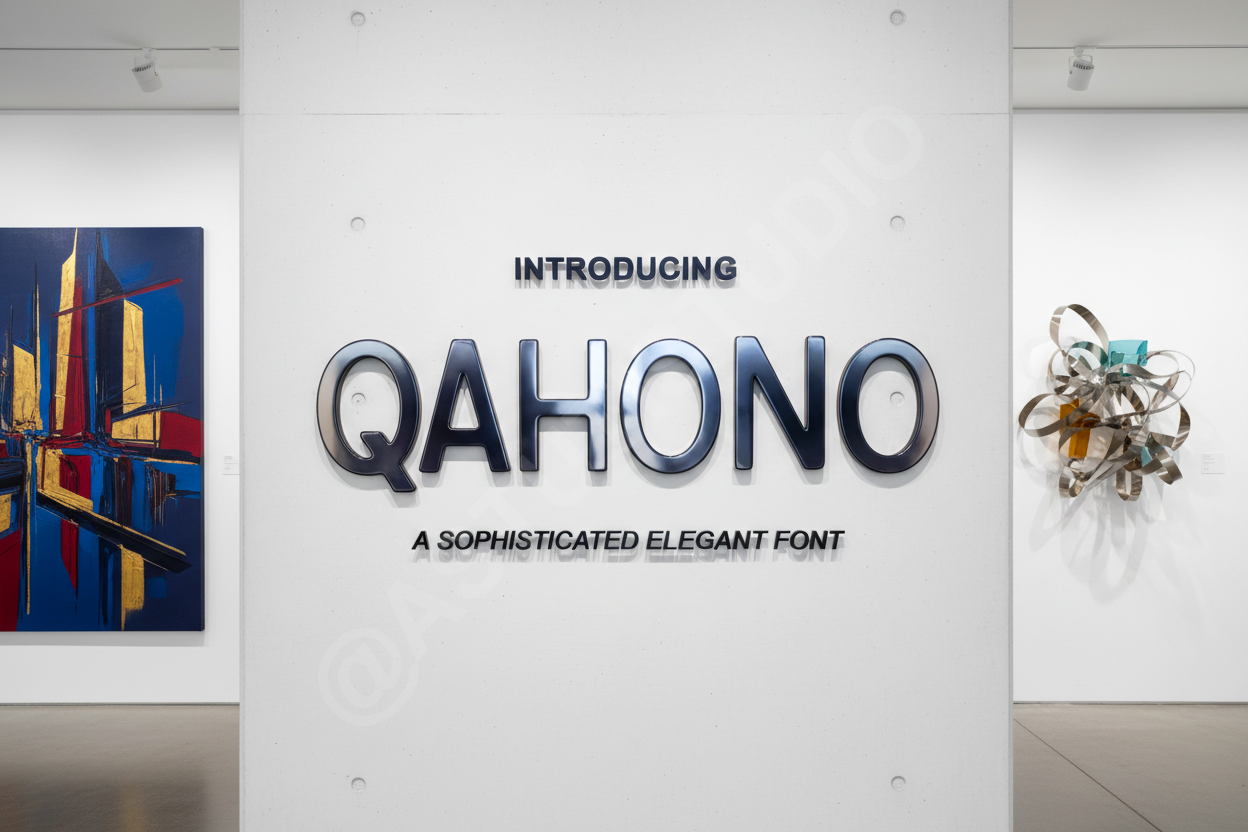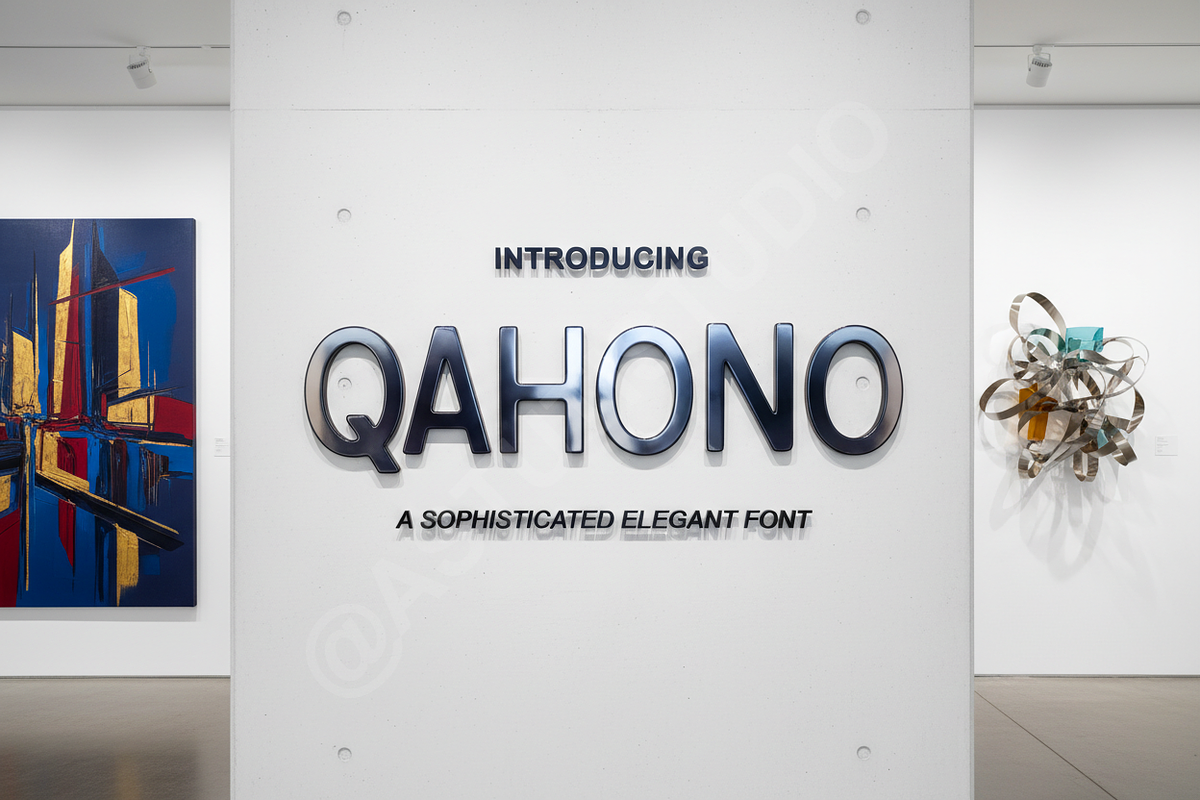
Qahono - Modern Luxury Serif Font
Qahono is a refined serif typeface designed for the discerning creator, balancing timeless elegance with contemporary flair. Meticulously crafted to meet the standards of premium studio productions, Qahono blends sharp, high-contrast serifs with fluid, graceful curves. This typeface is an essential tool for designers seeking to convey luxury, sophistication, and professional authority across digital and print mediums.
- Elegant high-contrast letterforms for a premium feel
- Extensive ligature set for bespoke-looking typography
- Full multilingual support for global reach
- Precision kerning for balanced editorial layouts
- Optimized for both large-scale display and legible body text
- Perfect for luxury branding, fashion editorials, and high-end social media content
- Comprehensive character set including uppercase, lowercase, and symbols
- Specialized stylistic alternates and ligatures